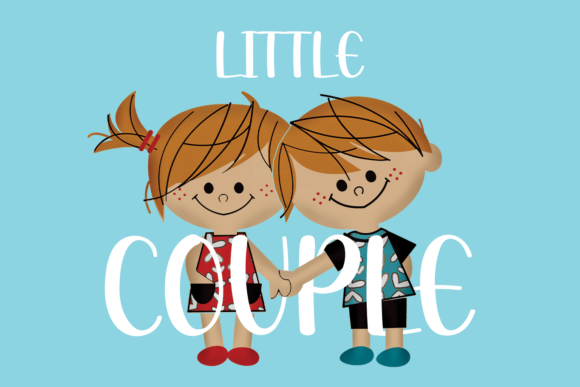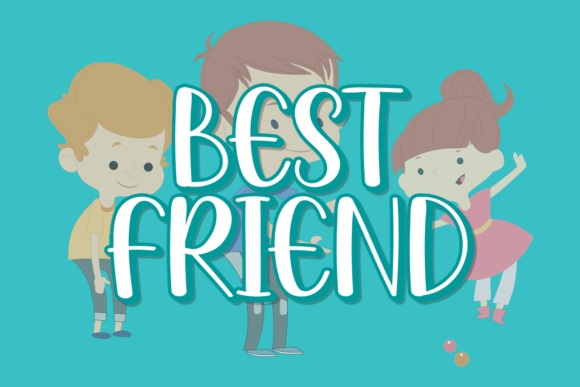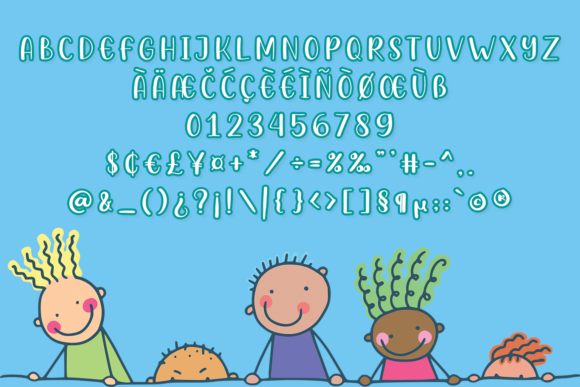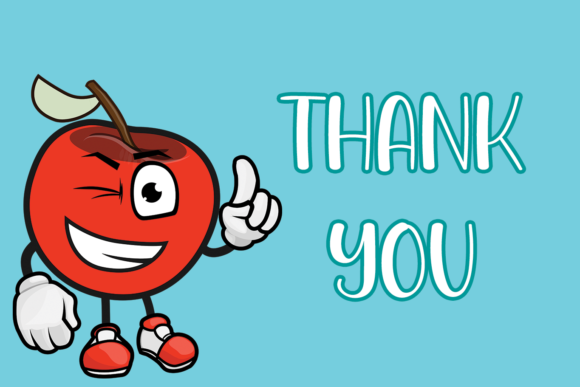
The Ultimate Guide to Best Friend Font: Elevate Your Designs with this Quirky and Chic Lettered Display Font
I’ll never forget the design project that led me to discover the Best Friend font. I was working on a branding project for a trendy boutique, and I was struggling to find the perfect font that captured the essence of the brand. The client wanted something quirky, chic, and eye-catching. After hours of searching, I stumbled upon Best Friend, and it was love at first sight! ✨
An Honest Review of Best Friend Font
What I Love About Best Friend Font
- ✨ Unique and quirky design: Best Friend font has a distinct personality that sets it apart from other fonts.
- ✅ Highly versatile: It can be used for a wide range of projects, from branding and advertising to crafting and DIY projects.
- 💡 Easy to read: Despite its quirky design, Best Friend font is surprisingly easy to read, even in smaller sizes.
- 🎨 Great for creative projects: This font is perfect for creative hobbyists, designers, and crafters looking to add a personal touch to their work.
While Best Friend font is amazing, it’s not perfect. Here are a few things to keep in mind:
- 🤔 Limited use in formal contexts: Due to its quirky design, Best Friend font might not be suitable for formal projects, such as business reports or academic papers.
- ⚠️ May not work well in small sizes: While the font is generally easy to read, it may become distorted or hard to read when used in very small sizes.
Designer Inspiration: The Story Behind Best Friend Font
The story behind Best Friend font is one of creativity and experimentation. The font was designed by a talented type designer who wanted to create a unique and quirky font that would stand out in a crowded design landscape.
The designer’s inspiration came from a mix of vintage typography, street art, and modern design trends. The result is a font that’s both playful and elegant, perfect for creative projects and branding.
| Font Name | Best Friend Font |
| Author | el hotcig |
Q: What is Best Friend font?
A: Best Friend font is a quirky and chic lettered display font designed for creative projects and branding.